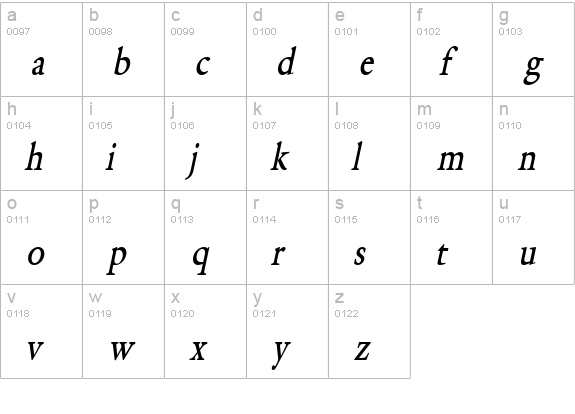
Coverdale-Condensed BoldItalic is a distinctive, condensed-width variant in the Coverdale typeface family \xE2\x80\x94 well suited to design and typography projects.
Introducing Coverdale-Condensed BoldItalic font - a sleek and stylish typeface designed to make a bold statement. This modern and sophisticated font is perfect for adding a touch of elegance to your projects. With its condensed design, it is ideal for headlines, titles, and branding materials. The bold italic style adds a touch of flair and personality to any text. The best part? Coverdale-Condensed BoldItalic font is available for free download at FontsMarket.com. Now you can elevate your designs without breaking the bank. Don't miss out on this opportunity to enhance your creative work with this stunning font. Download Coverdale-Condensed BoldItalic today and take your projects to the next level.